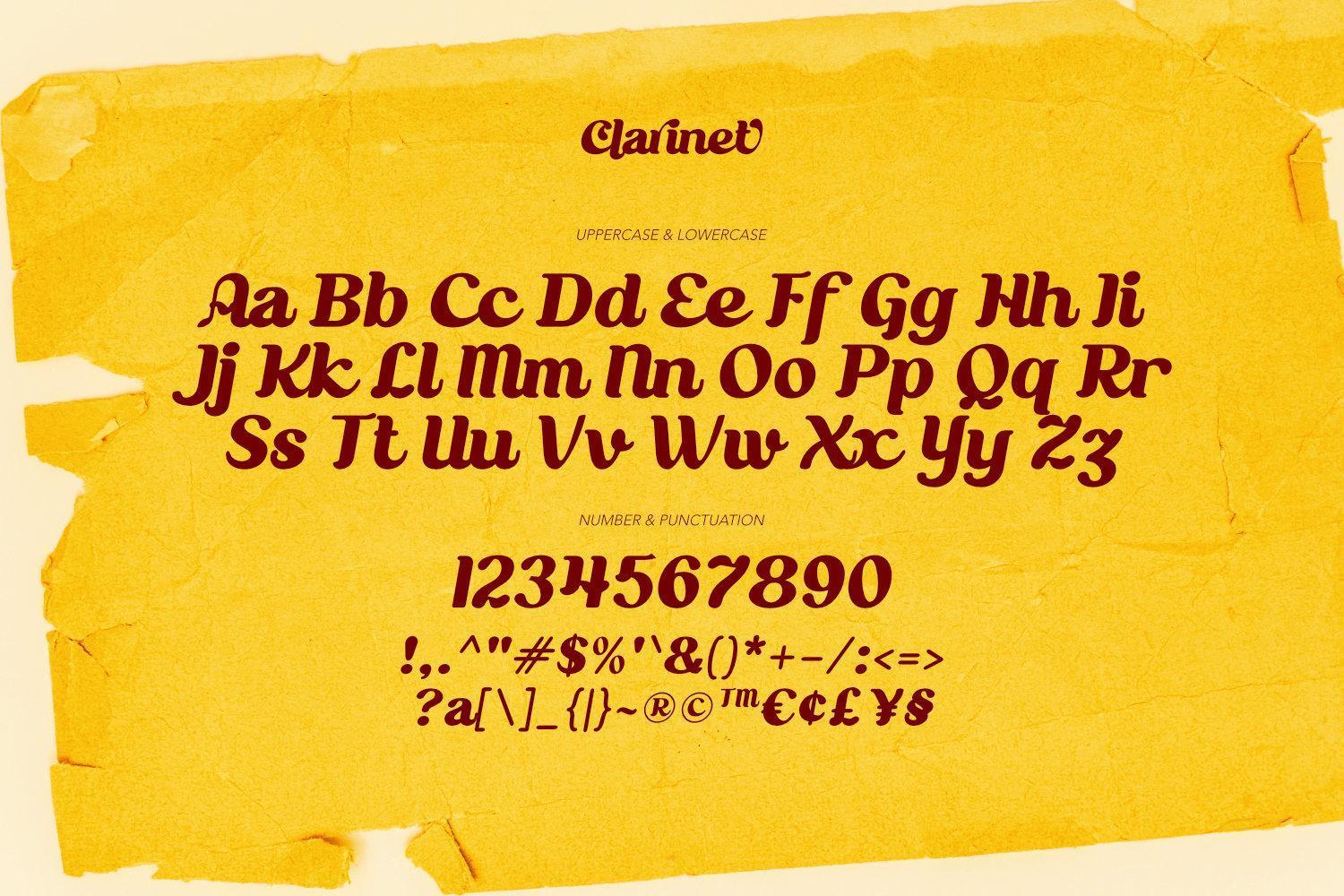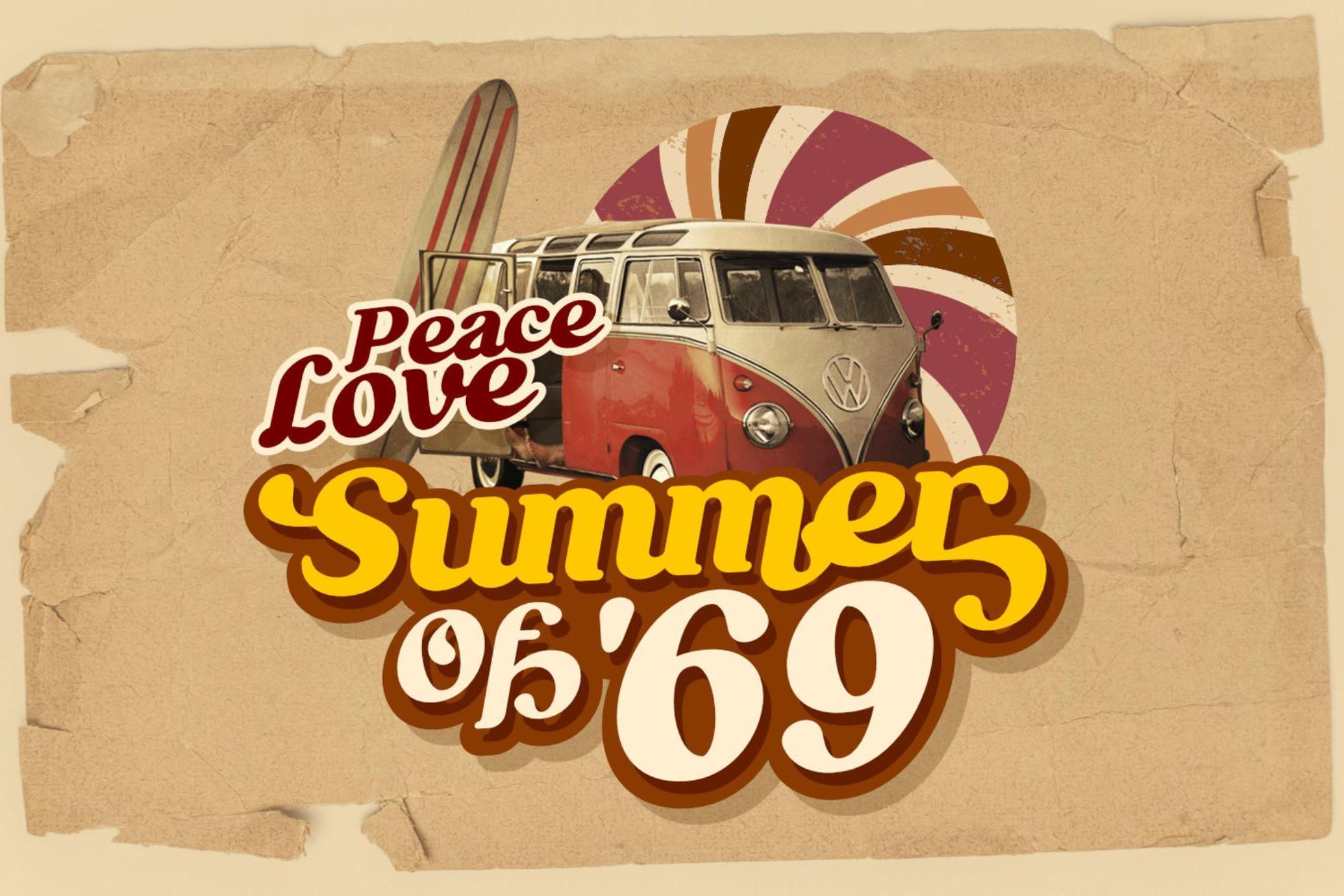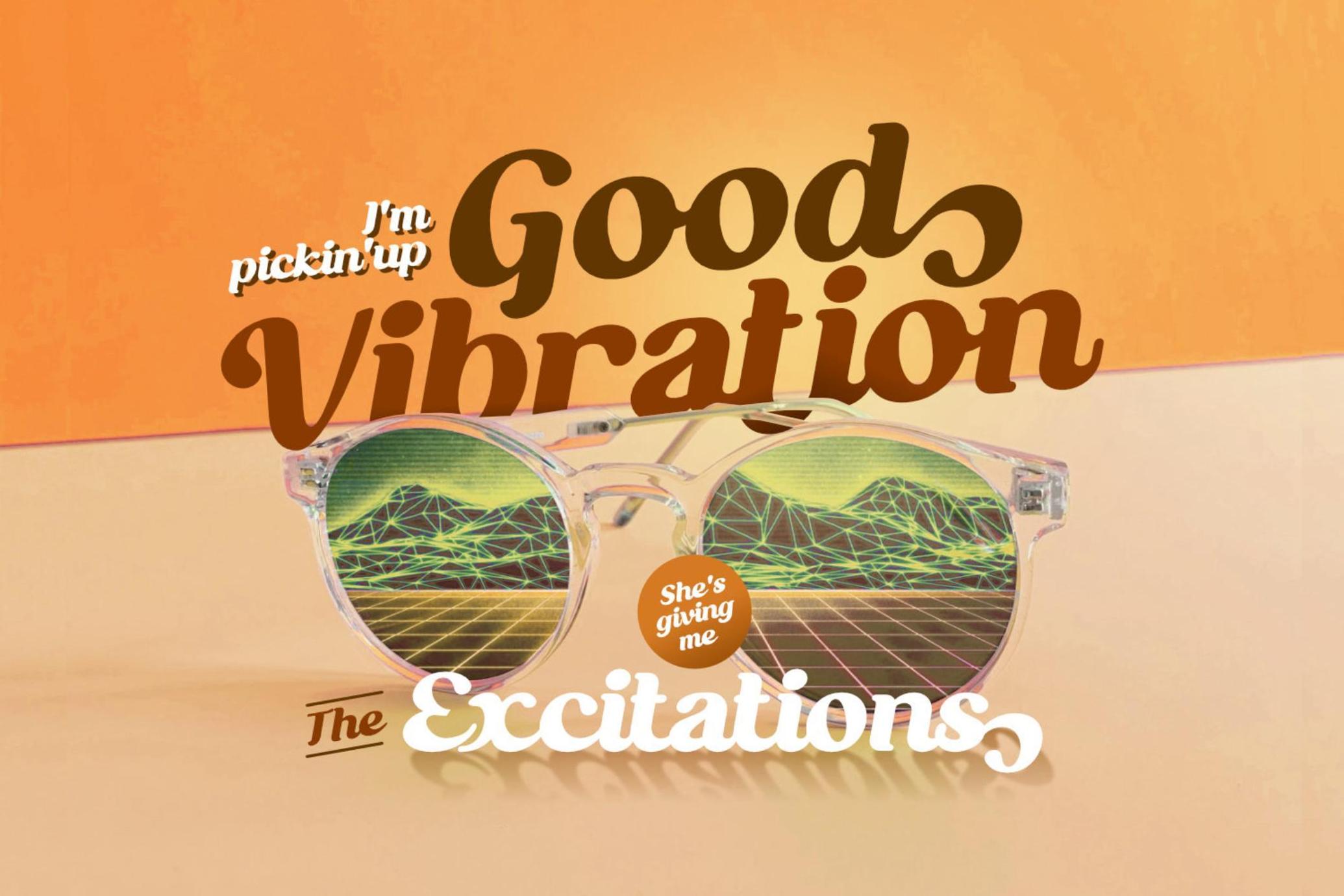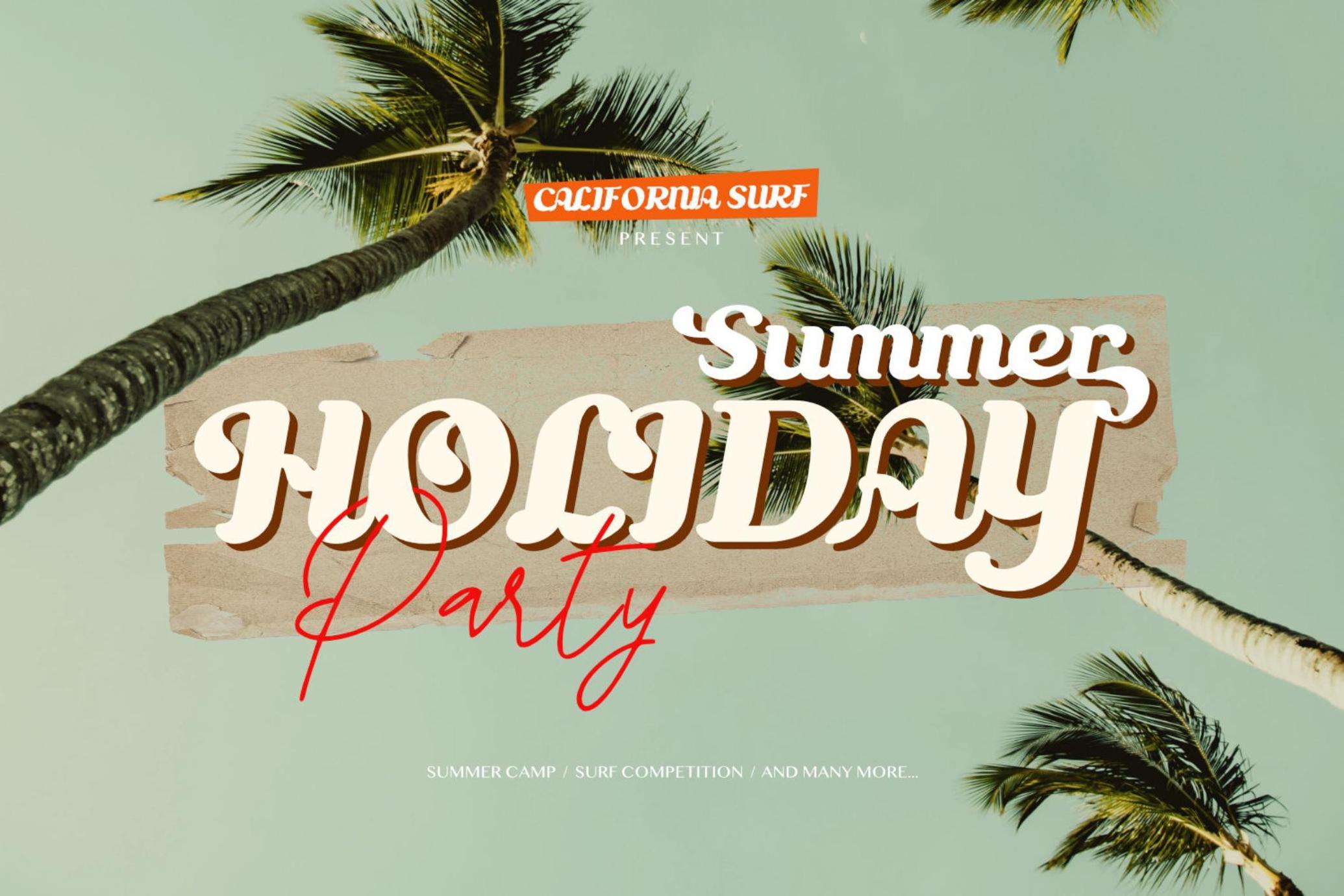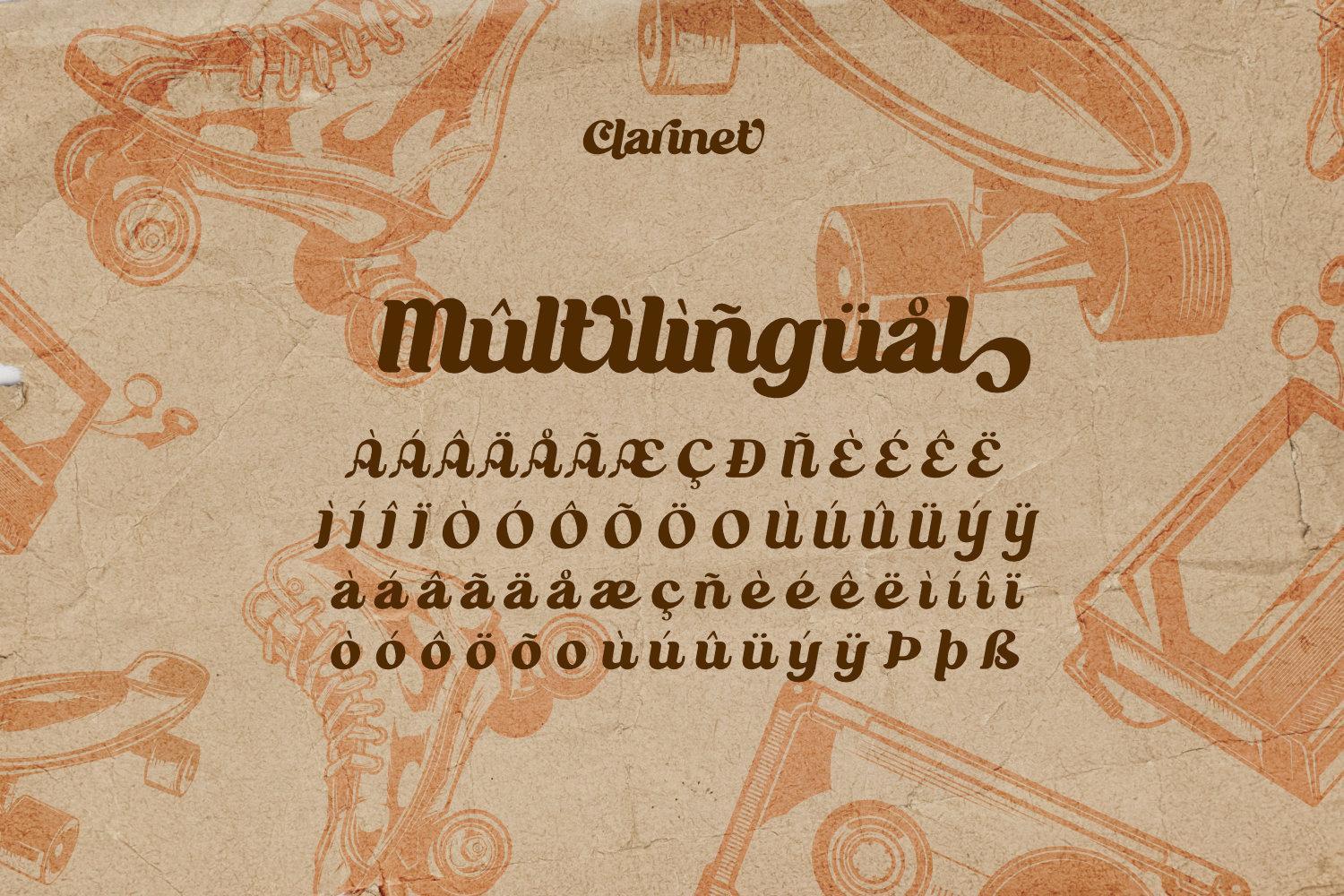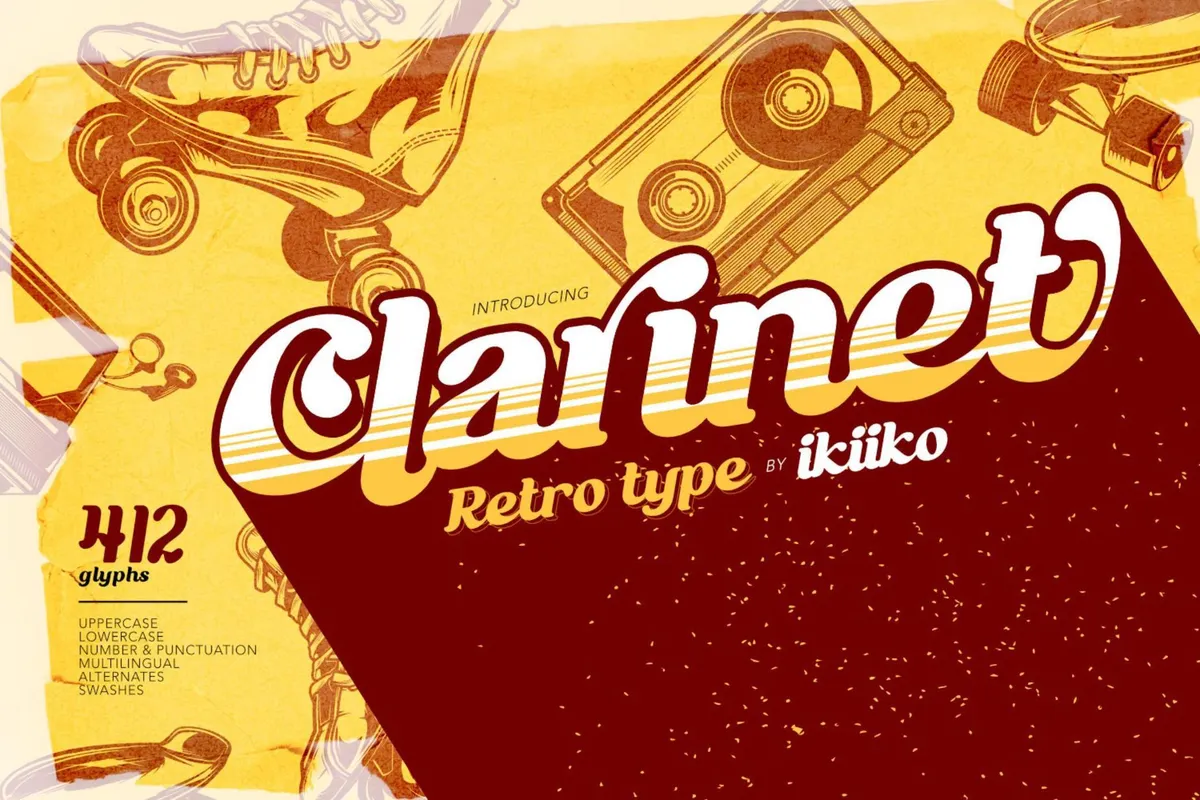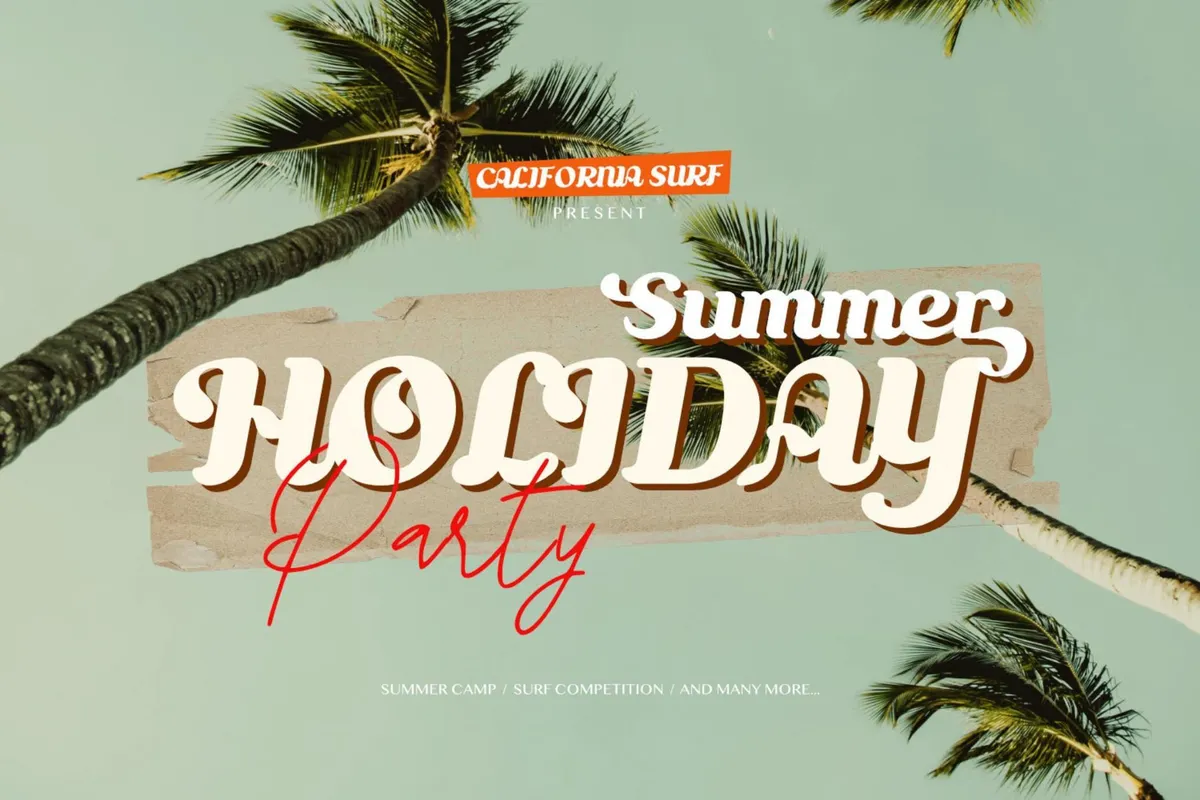
Clarinet - Retro Font
Clarinet
Clarinet - Retro Type is a display type inspired by retro fonts in the 60s era . The letters are bold serif fonts with simple vintage strokes. This font has the characteristics of a serif font that is firm and sturdy but still has flexibility.
This typeface is perfect for an vintage logo, packaging, magazine cover, poster & flyer design, wedding, invitation and also good for vintage product, or simply as a stylish text overlay to any background image.
- Number & Punctuation
- Alternates & Swashes